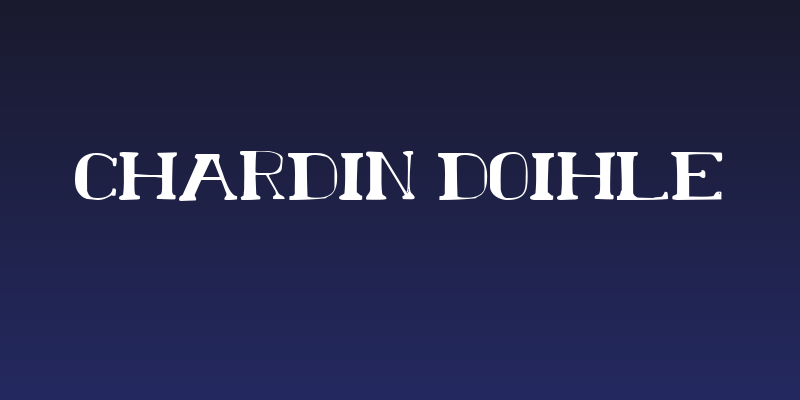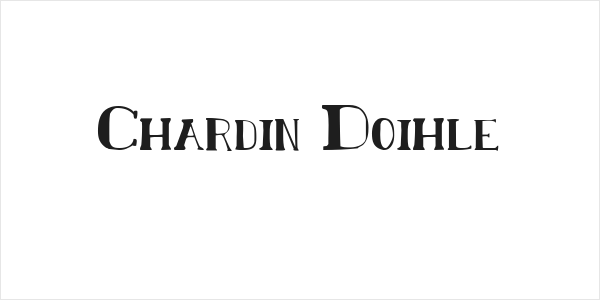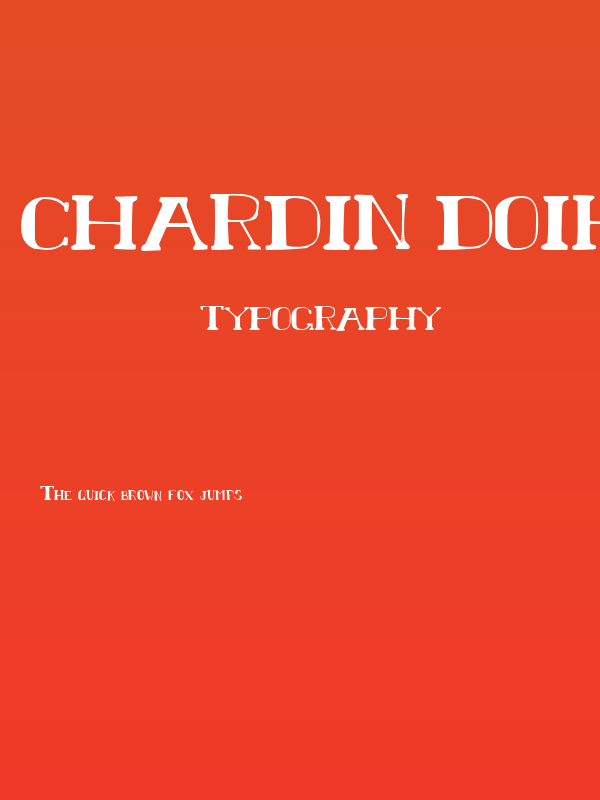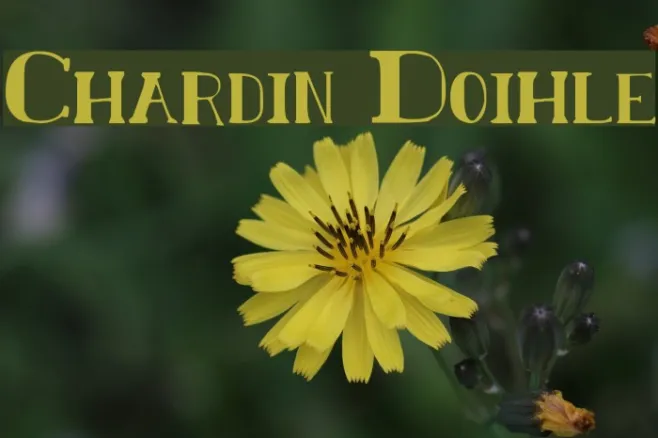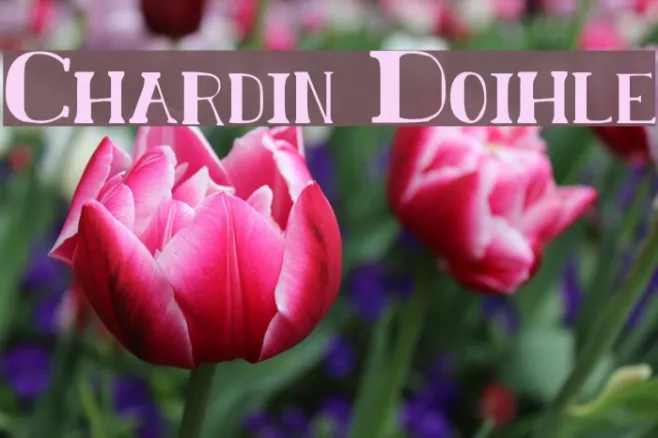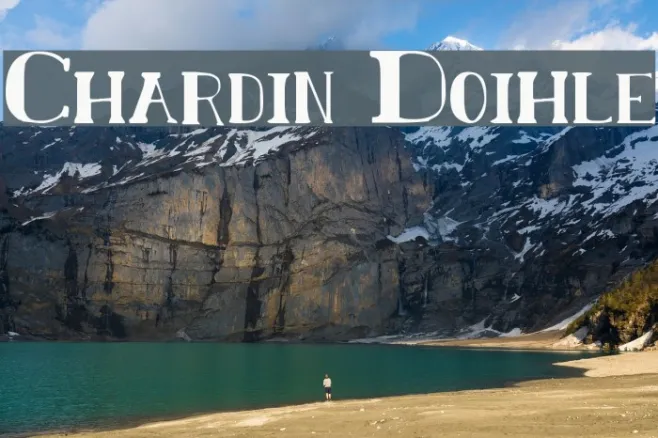
Chardin Doihle Font
Chardin Doihle Description
This font features a bold and distinctive style with a strong presence. The characters have a unique blend of sharp edges and rounded curves, creating a dynamic and eye-catching appearance. The uppercase letters are particularly striking, with exaggerated serifs and varying stroke widths that add to the font's decorative nature. The numerals and special characters maintain this bold style, ensuring consistency across all glyphs. This font's design is both modern and vintage, making it versatile for various creative applications.
| Overall Style | Modern, Vintage |
| Proposed Projects | Ideal for branding, poster design, headlines, and any project requiring a bold, decorative touch. |